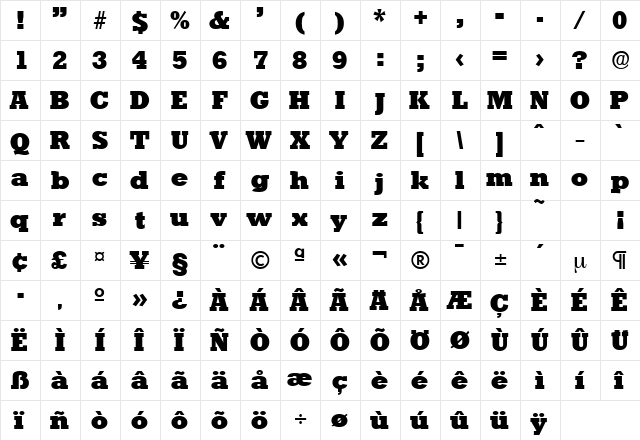
Stafford-Serial-Heavy Regular
Design Context for Stafford-Serial-Heavy Typeface
Stafford-Serial-Heavy is a composed and adaptable typeface that performs quietly and consistently across a wide range of design contexts.